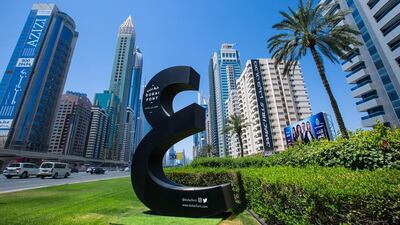
DUBAI // Huge alphabetical letter figures in the new Dubai Font style have gone up in areas across the emirate.
The letters have been installed on Sheikh Zayed Road, Sheikh Mohammed bin Rashid Boulevard, Dubai Mall and Kite Beach as well as other main thoroughfares in Dubai.
The Express You initiative was launched by Sheikh Hamdan bin Mohammed, Crown Prince of Dubai and Chairman of the Dubai Executive Council.
The figures showcase the unique design of the font and blend 23 languages.
“The Dubai Font is not only a digital medium for expression and reading, it is also a means of communication combining the ancient and honourable past of the emirates to its modern present and the aspirations of its brilliant future”, said Ahmad Al Mahri, assistant secretary general for the Executive Council and General Secretariat Affairs Sector of Dubai, and project director of Dubai Font.
“The Dubai Font, with the use of its different letters, will allow individuals from all over the world to express themselves and their opinions in their mother tongue and we aim through this initiative to convey a message from our dear nation to the world.”
The font was developed in collaboration with Microsoft and was created as part of the UAE’s bid to become a regional and global leader in innovation.
Dubai Font was developed with unique specifications that aim to encourage self-expression and reading, said Mr Al Mahri.
It was created from scratch and fills a design gap between Arabic and Latin texts and presents “harmonious” typefaces combining the two scripts seamlessly, he said.